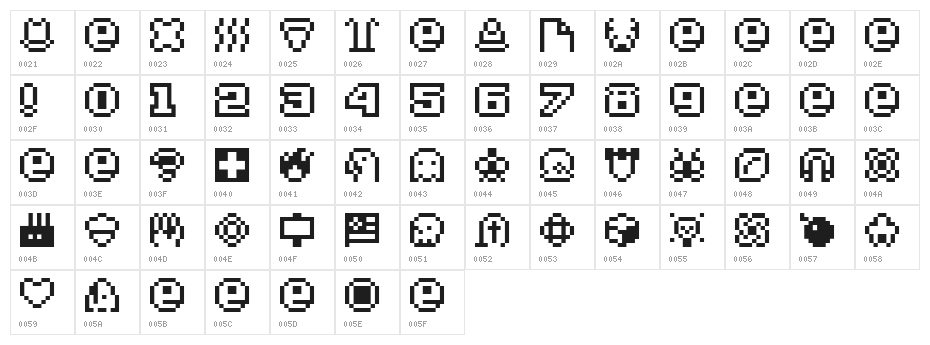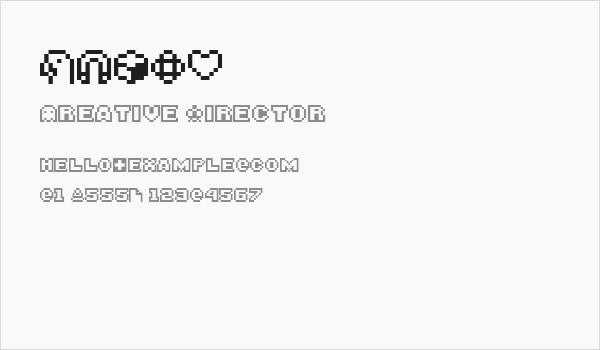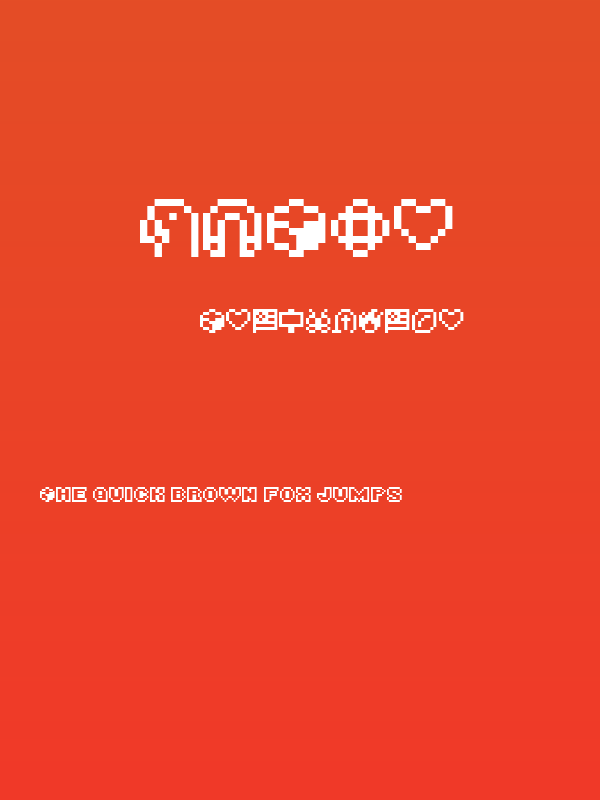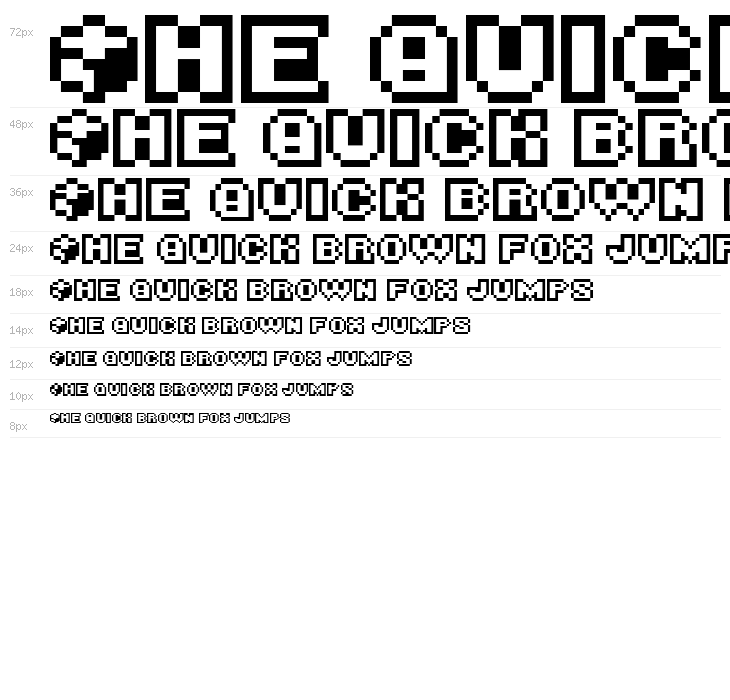
BITSY Font
BITSY Description
This font features a pixelated, blocky design reminiscent of early video game graphics. Each character is constructed with a grid-like pattern, giving it a retro, digital aesthetic. The uppercase letters are bold and distinct, with a uniform height and width that enhances readability. The numbers and special characters follow the same pixelated style, maintaining consistency across the font. This design evokes nostalgia for classic arcade games and is perfect for projects that aim to capture a vintage digital feel.
| Overall Style | Vintage |
| Use Case | Headlines, Logos, Digital Art |
| Proposed Projects | Ideal for video game design, retro-themed posters, digital art projects, and any creative work that seeks to evoke nostalgia for the 8-bit era. |